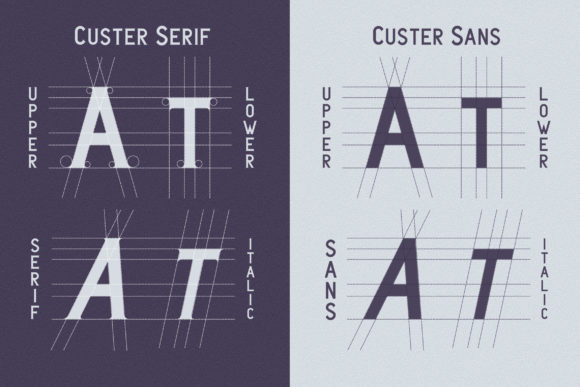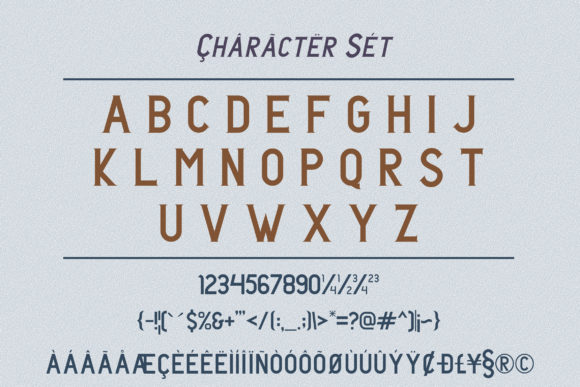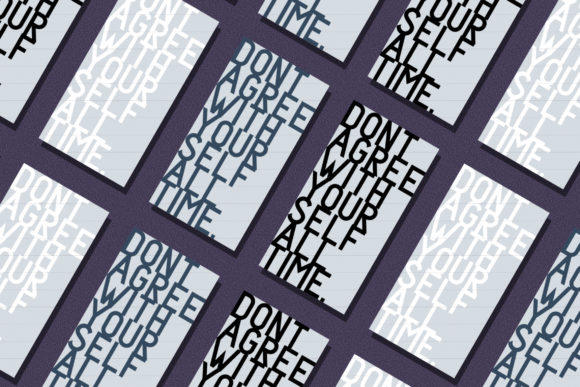
Introduction to Custer Family Font
The Custer is a handmade family.
It includes serif and sans fonts which are made for various purposes such as: logos, ads, headings, posters, and much more .